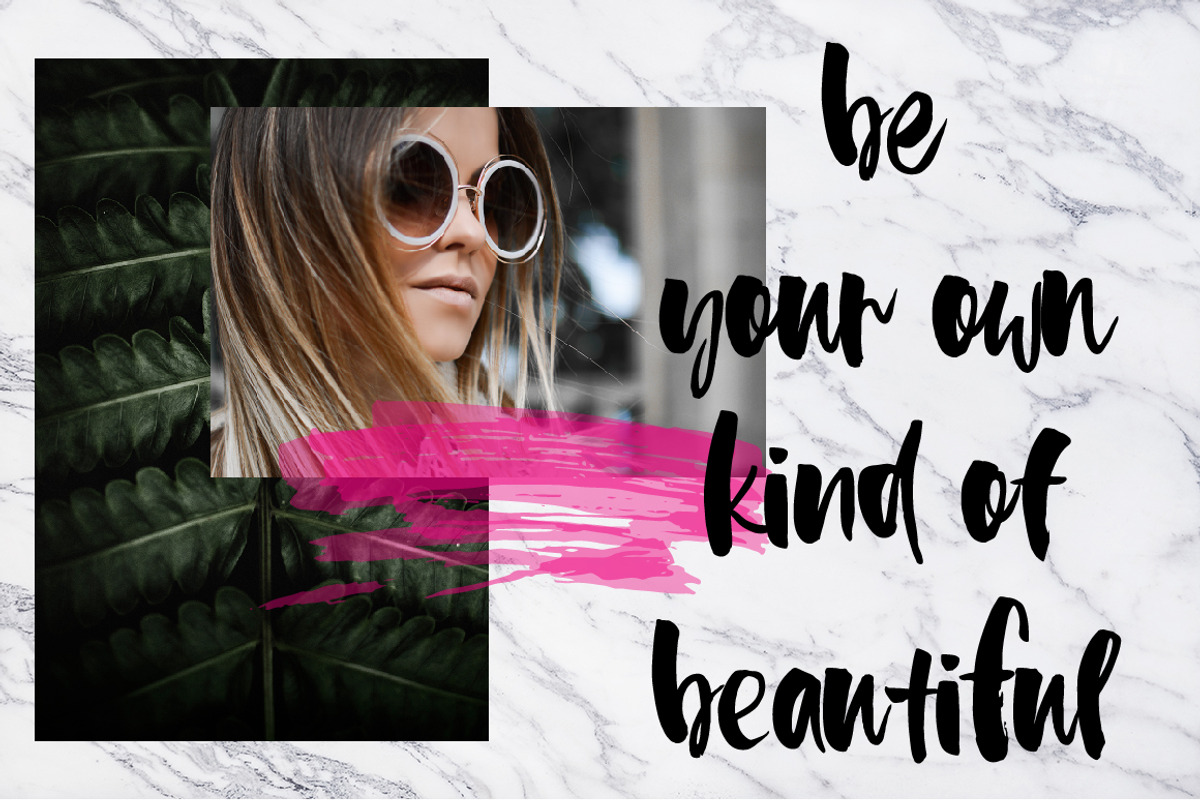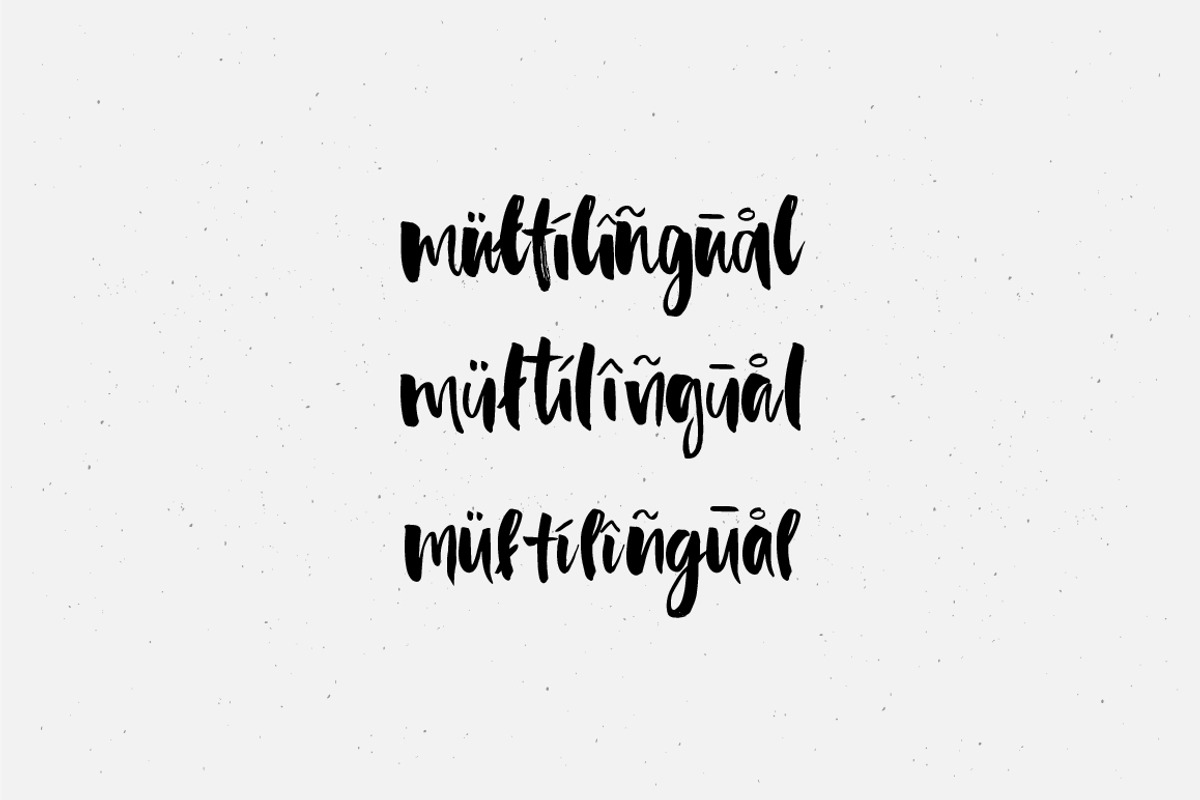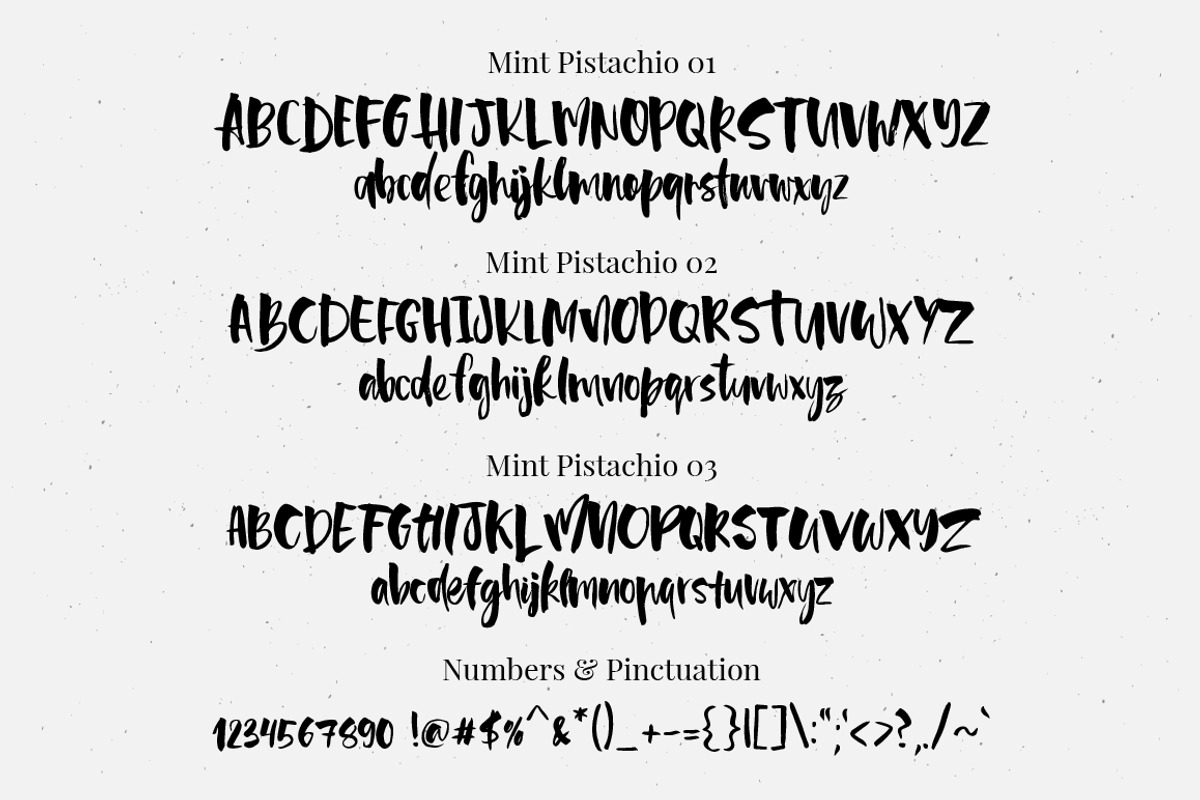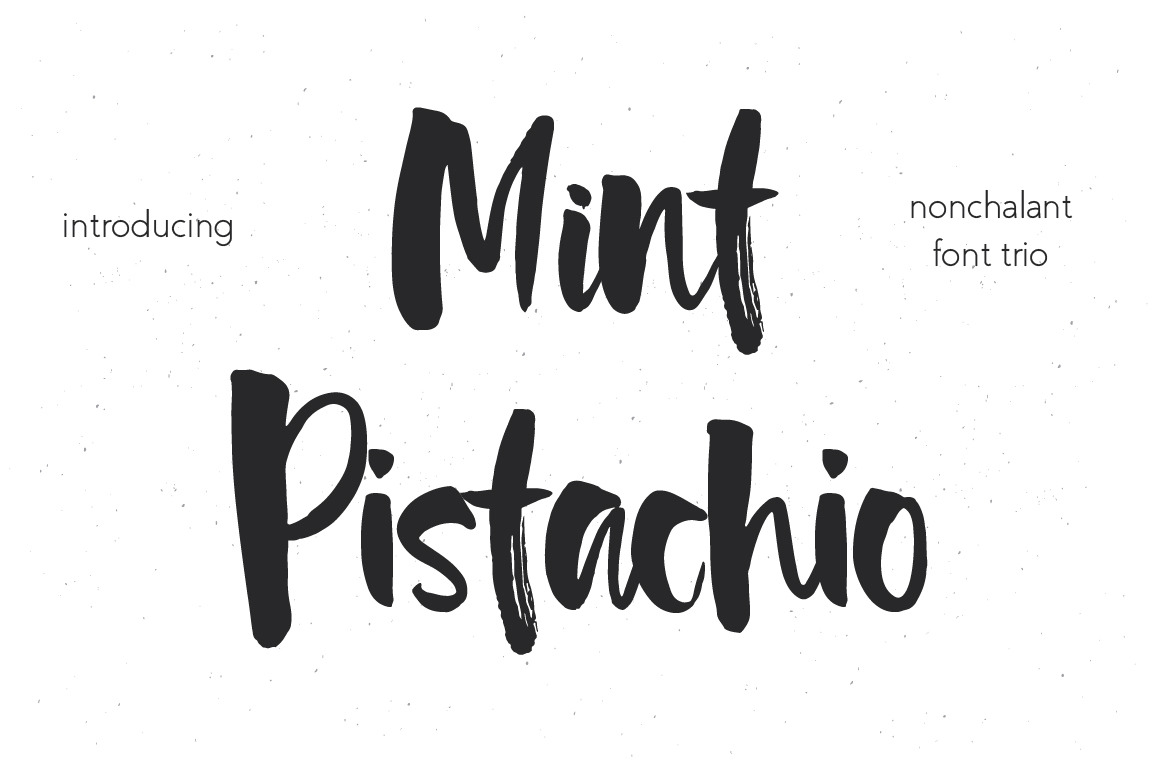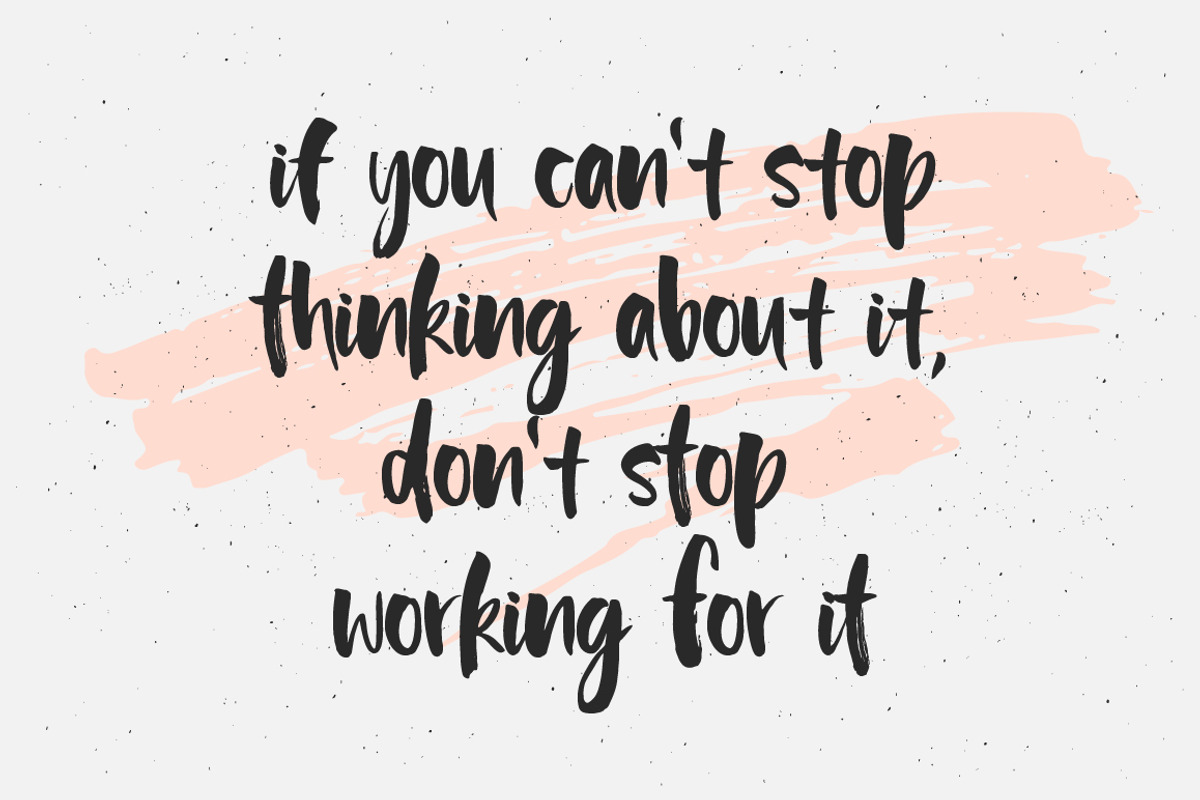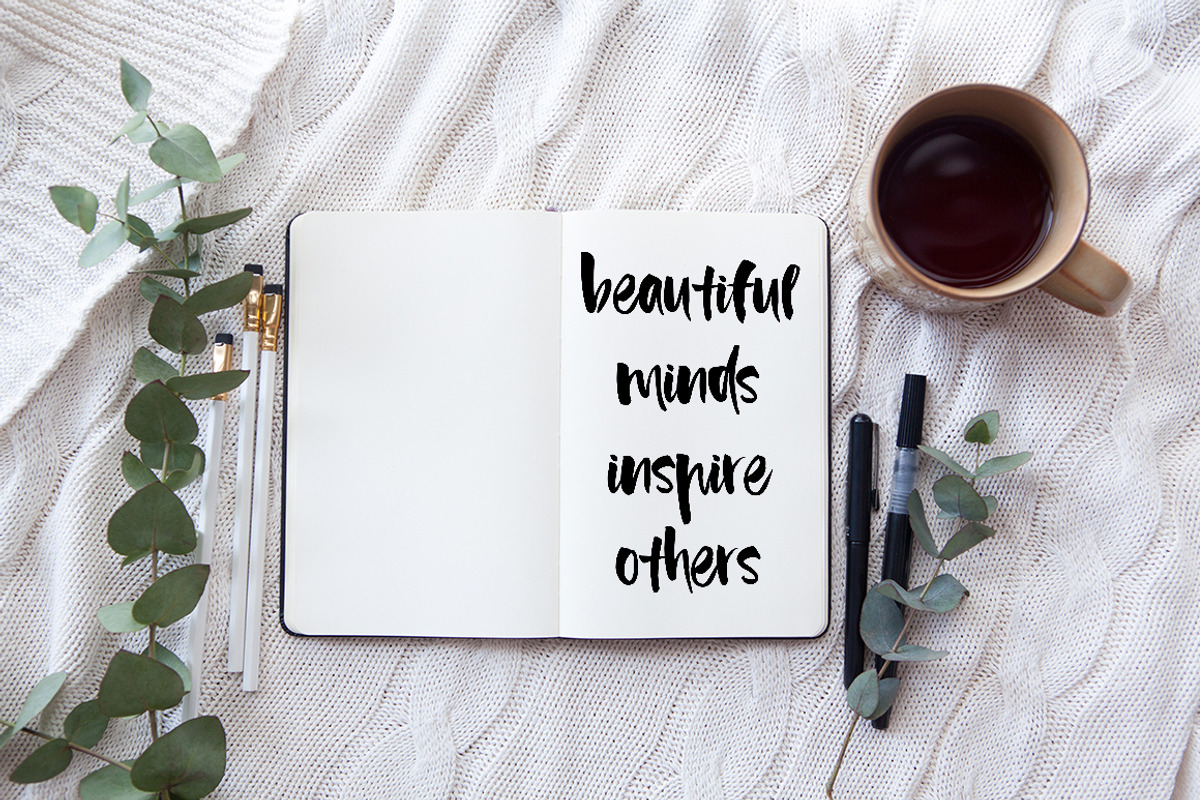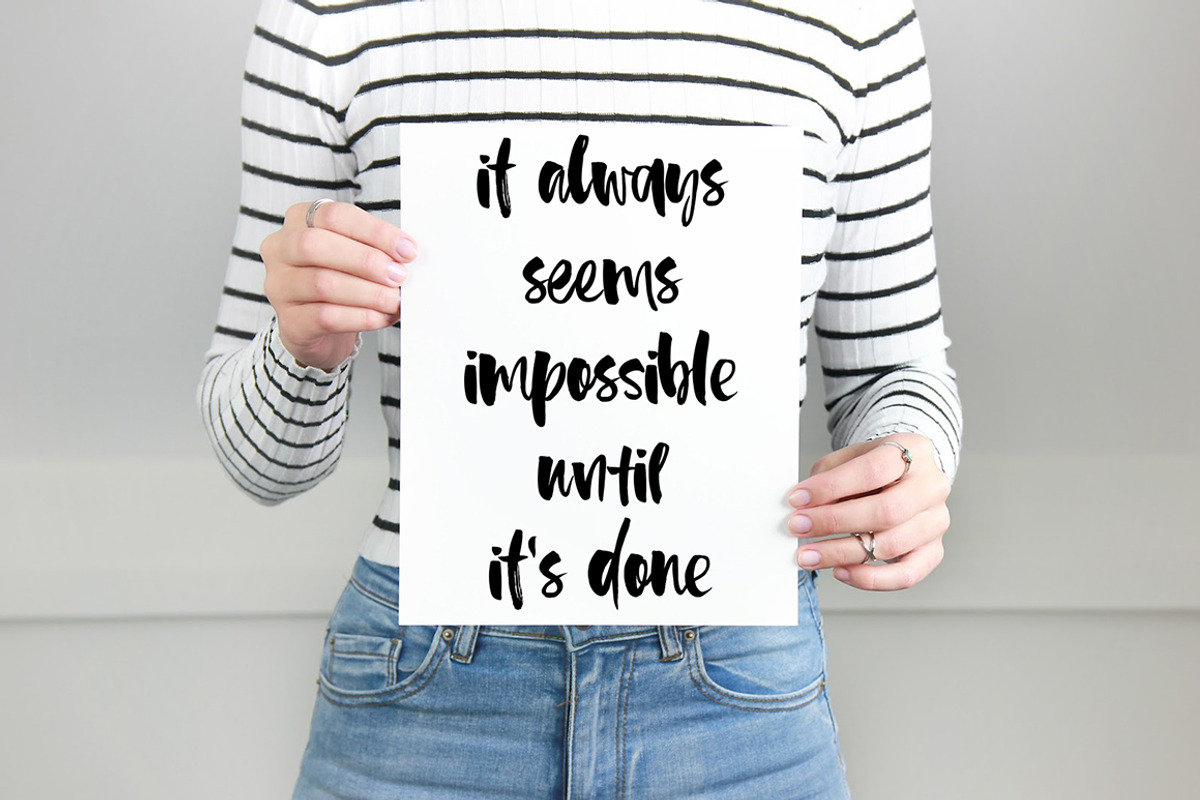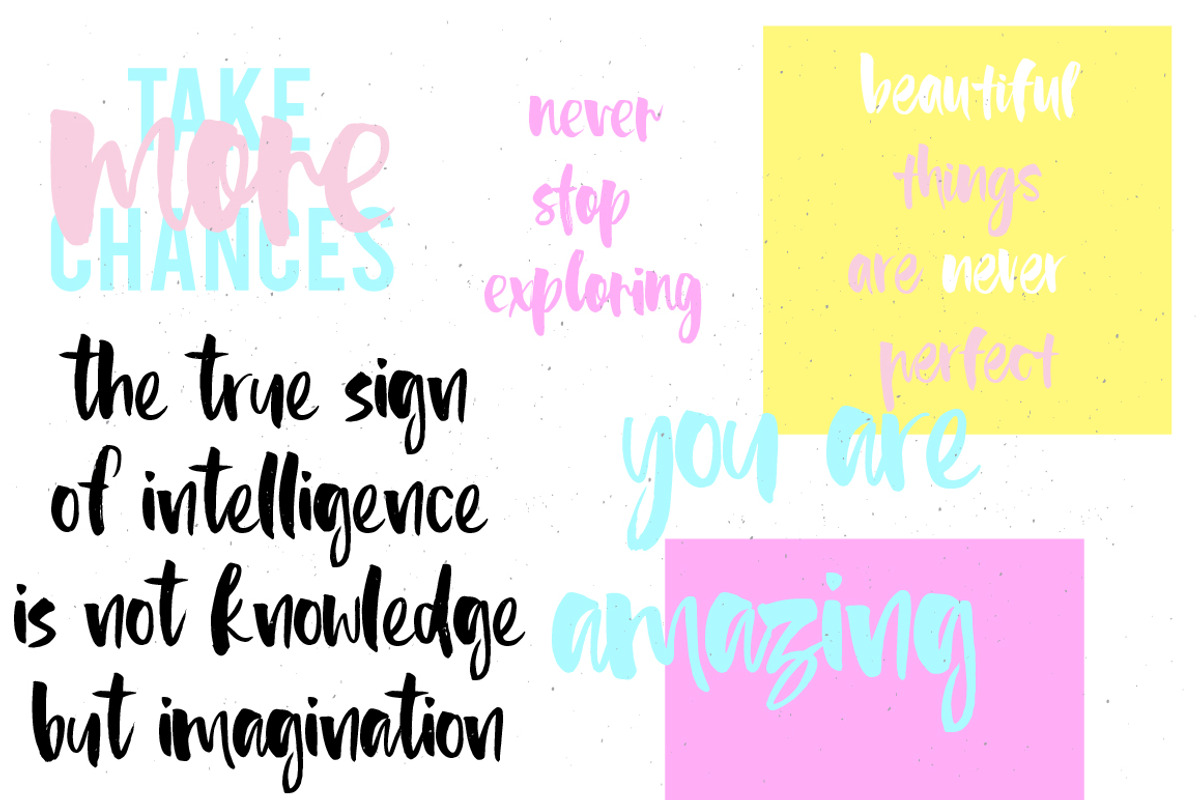
Mint Pistachio Font Trio
Say Hello to this new unique font Mint Pistachio!. Add a hand brushed touch to your lettering, logo designs, quotes, packaging, social media. You can mix and match all three fonts in one word without any special software.
1. Mint Pistachio 01 otf. and ttf. A hand brushed font with full set of upper and lowercase characters, numerals, punctuation and multilingual characters.
2. Mint Pistachio 02 otf. and ttf. Second version of the font with the new set of upper and lowercase characters and new set of multilingual characters.
3. Mint Pistachio 03 otf. and ttf. Third version of the font with the new third set of upper and lowercase characters and (yes!) another new set of multilingual characters.